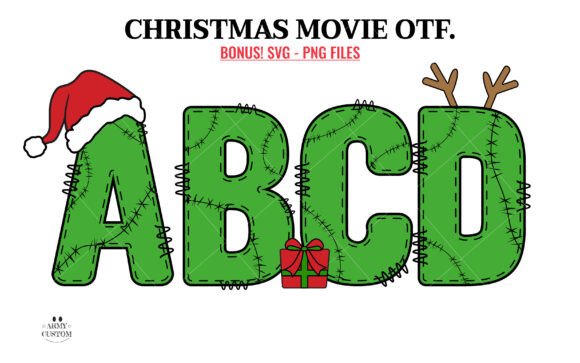
Elevate Your Festive Projects with the Delightful Christmas Movie Font
The holiday season is upon us, and with it comes the joy of creating festive projects that bring cheer and merriment to our loved ones. Whether you’re a designer, a DIY enthusiast, or a social media influencer, having the right tools to make your creations shine is essential. That’s where the Christmas Movie Font comes in – a playful and whimsical font that’s sure to add a dash of magic to your holiday designs.
What is the Christmas Movie Font?
The Christmas Movie Font is a jovial font that’s inspired by the adorable antics of Santa’s helpers. Its playful style makes it an ideal choice for creating vibrant holiday decorations, adding a touch of merriment to any design project, or simply spreading holiday cheer through your social media channels. With this font, every letter spelled out becomes a joyous celebration, perfect for getting you in the mood for the holiday season.
Key Features of the Christmas Movie Font
- Whimsical Design: The Christmas Movie Font boasts a unique and playful design that’s sure to capture the spirit of the holiday season.
Tips and Tricks for Using the Christmas Movie Font
Here are a few tips and tricks to help you get the most out of the Christmas Movie Font:
- Experiment with Colors: Try out different colors and color combinations to create a unique and eye-catching design.
- Mix and Match Fonts: Combine the Christmas Movie Font with other fonts to create a unique and visually appealing design.
- Use it for Various Projects: The Christmas Movie Font is versatile and can be used for a wide range of projects, from holiday cards and decorations to social media graphics and more.
- Adds a Touch of Whimsy: The Christmas Movie Font adds a playful and whimsical touch to your designs, perfect for capturing the spirit of the holiday season.